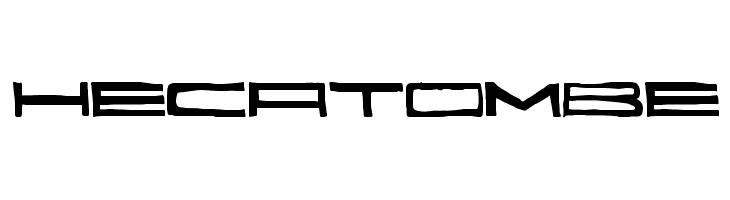
A bold, geometric font with a modern and striking design.
A bold, engraved font with a vintage woodcut style.
A bold, italic font with a modern and angular design.
A bold, geometric outline font with a modern and structured aesthetic.
A bold, modern font with a shadow effect created by horizontal lines.
A bold, geometric font with sharp serifs and a modern aesthetic.
A bold, playful font with jagged edges and a hand-drawn, graffiti-like style.
A playful, handwritten font with a modern and whimsical style.
A playful, hand-drawn font with rounded edges and a whimsical style.
A decorative font with characters resembling playful, serpentine forms.